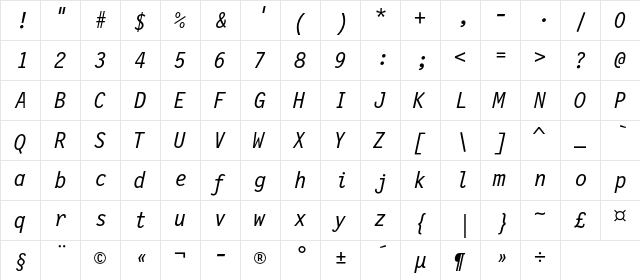
LettrGoth12C BT Italic Font Preview
LettrGoth12C BT Italic
LettrGoth12C BT Italic Font Details
Design Context for LettrGoth12C BT Typeface
LettrGoth12C BT is a composed and adaptable typeface that performs quietly and consistently across a wide range of design contexts. Its italic angle brings a sense of urgency and motion to the letterforms.
Pro Tip: Try LettrGoth12C BT for annotation and caption copy alongside an upright companion — the contrast in angle creates a dynamic but ordered typographic system.